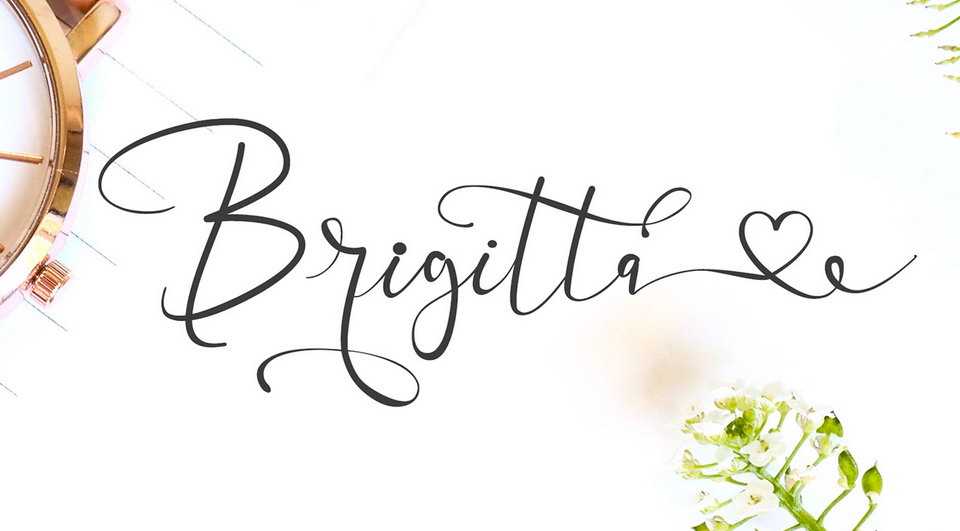
Download Brigitta script, a stunning and beautiful carefully designed, handwritten font with a light feel. Fall in love with its delicate and sophisticated characters, and use it for any design project that requires a romantic twist.
Designer: Thomas Aradea